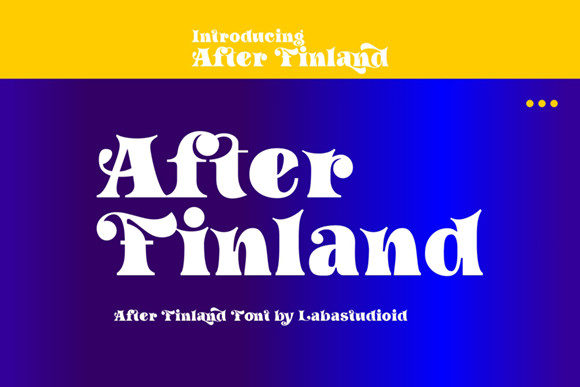
The Designer’s Delight: After Finland Font
I still remember the frustration of working on a logo design project, only to hit a roadblock when it came to choosing the perfect font. My client wanted something unique, memorable, and elegant, but I just couldn’t seem to find the right fit. That was until I stumbled upon the After Finland font. ✨ It was love at first sight! The harmony and balance of its characters were unlike anything I’d ever seen before. In this article, I’ll share my experience with this beautiful serif font, its features, and how to make the most of it in your designs.
• ✅ Unique and elegant serif design
• ✅ Memorable and impressive character set
• ✅ Perfect for logos, branding, packaging, labels, advertising, and more
• ✨ Beautifully crafted to add a touch of sophistication to any design
While After Finland is an exceptional font, there are a few things to keep in mind: 🤔
• ⚠️ Limited availability of stylistic alternates
• ⚠️ May not be suitable for body text due to its elegant, yet refined nature
The After Finland font was crafted with inspiration from the natural beauty of Finland’s landscapes and the simplicity of Nordic design. The font’s creator aimed to create a typography that exudes elegance, sophistication, and a touch of Scandinavian charm.
Q: What type of projects is After Finland best suited for?
A: After Finland is perfect for logos, branding, packaging, labels, advertising, and any project that requires a touch of elegance and sophistication.
Q: Can I use After Finland for body text?
A: While After Finland is an elegant font, it may not be the best choice for body text due to its refined nature. It’s better suited for titles, headings, and short-form content.
Q: Does After Finland support OpenType features?
A: Yes, After Finland supports OpenType features, including ligatures and stylistic alternates, which can add a personal touch to your text.
Q: Is After Finland suitable for digital and print projects?
A: Yes, After Finland is designed to work beautifully in both digital and print projects, making it a versatile font for various applications.